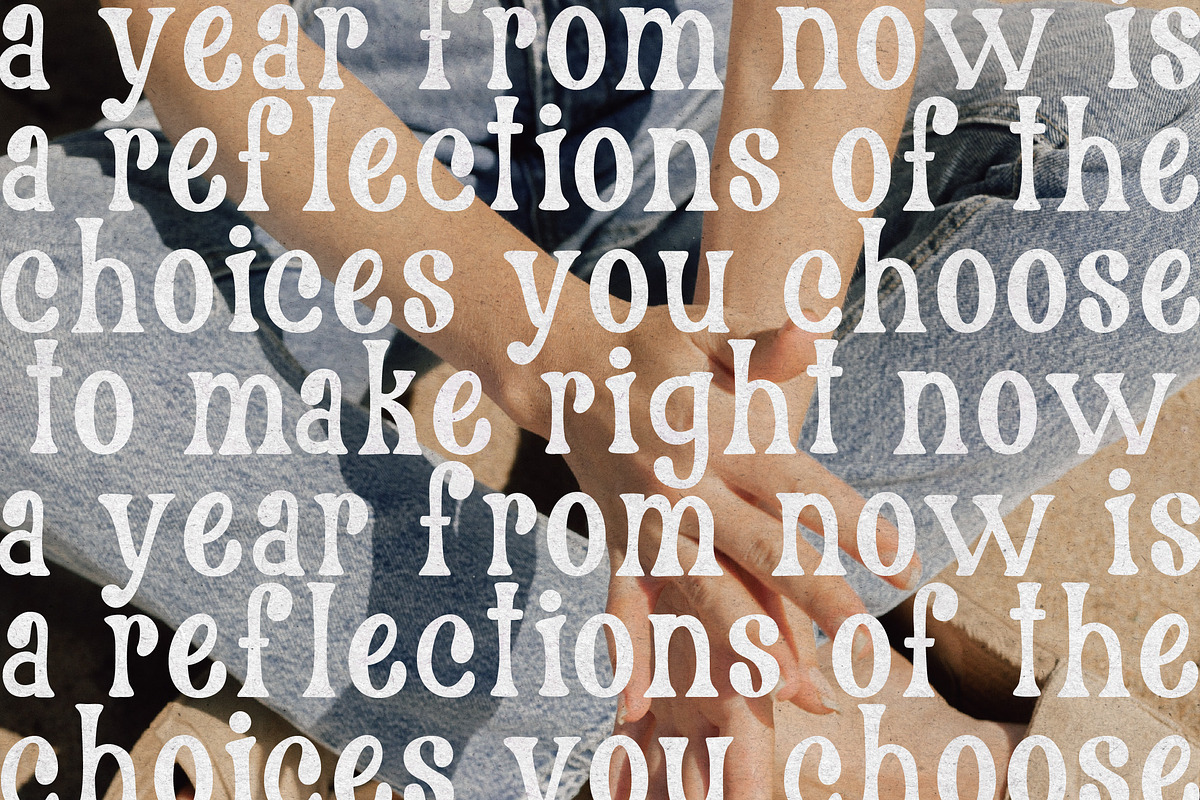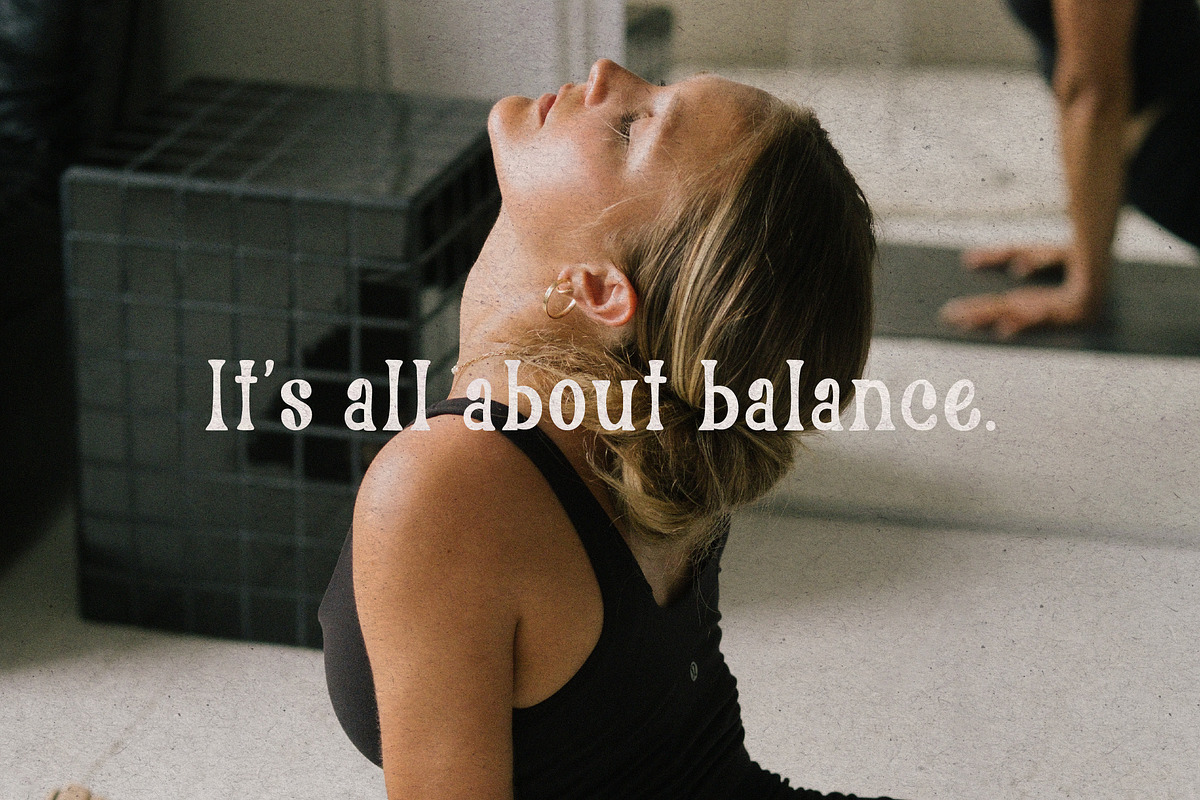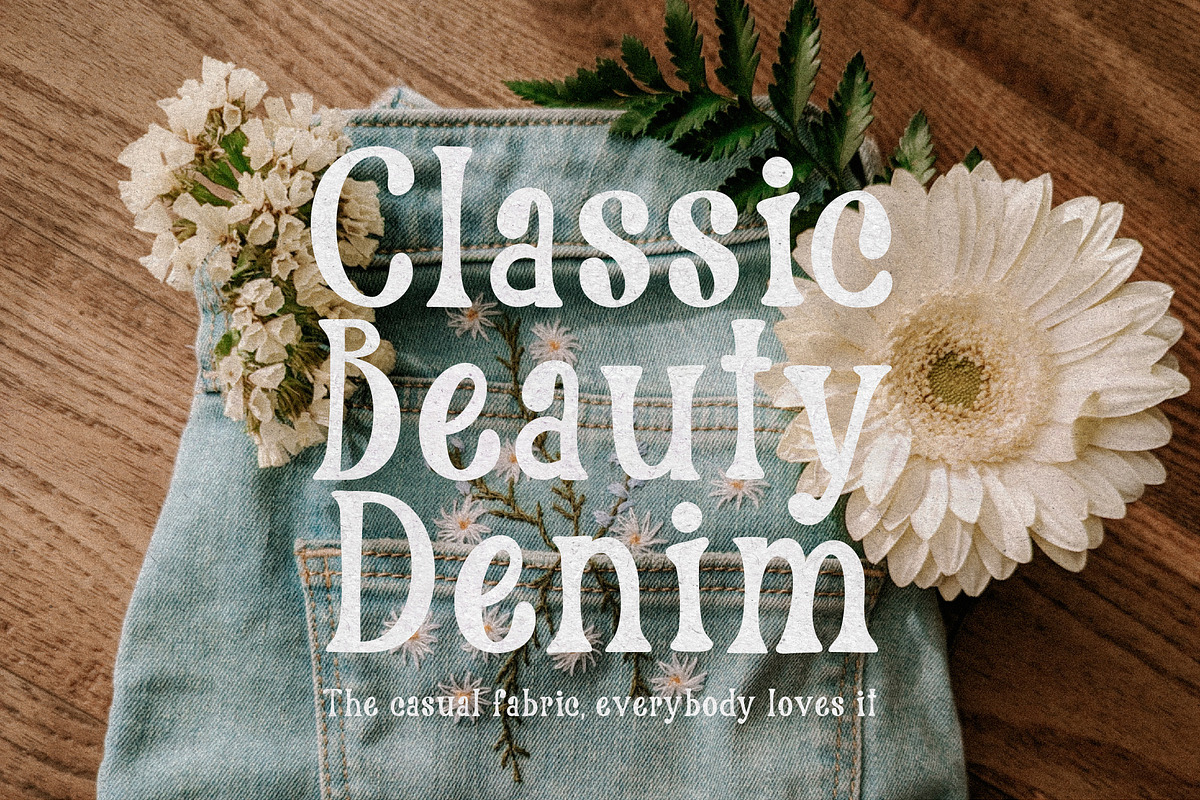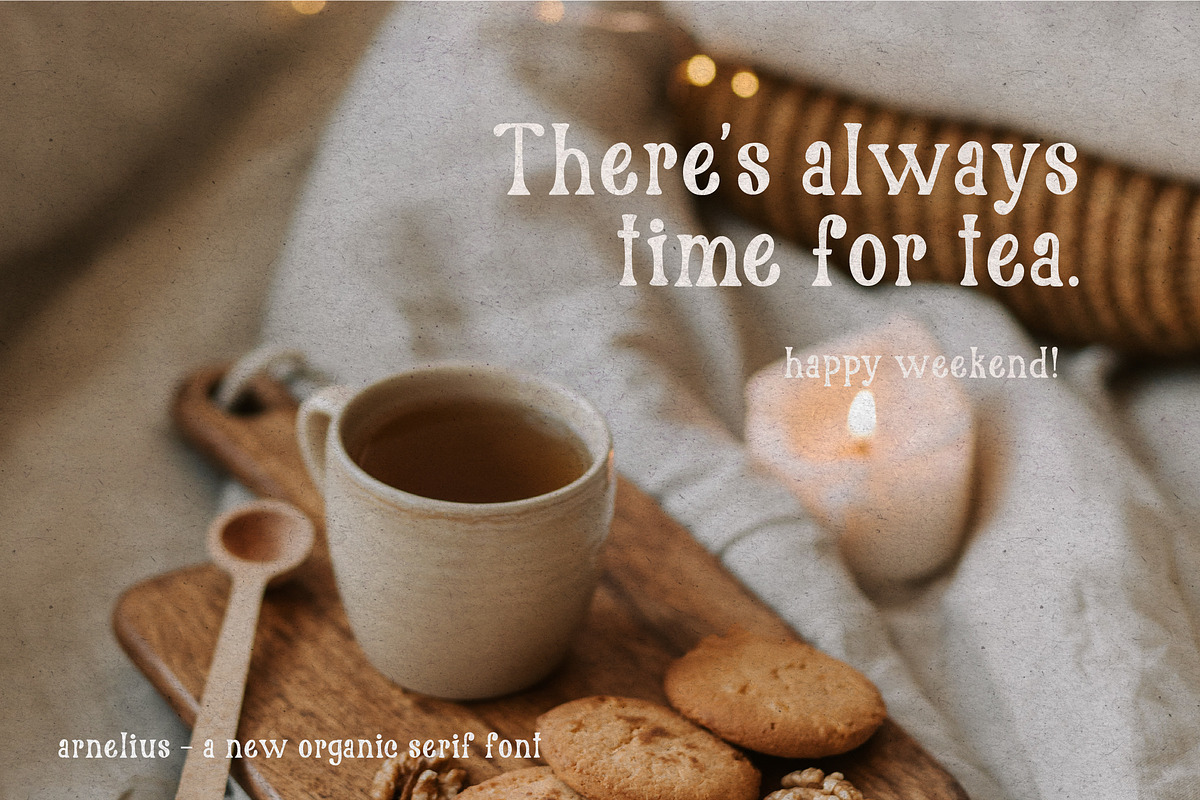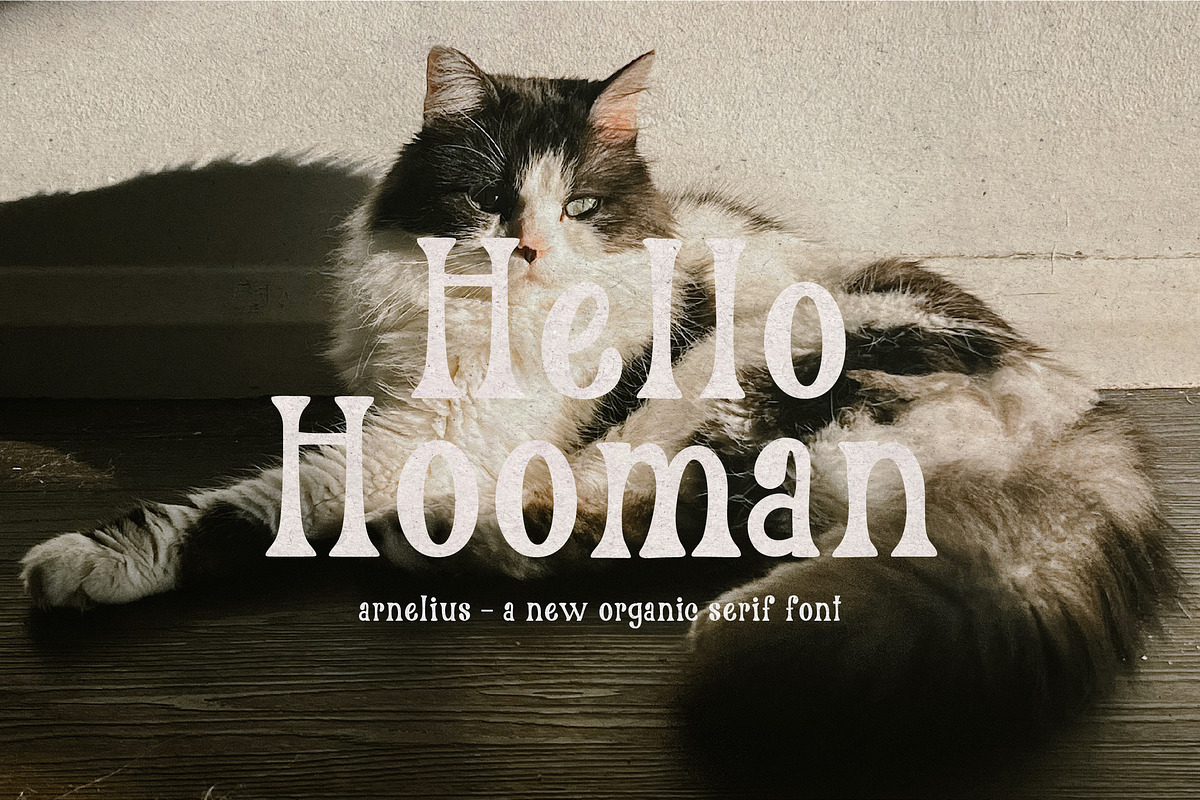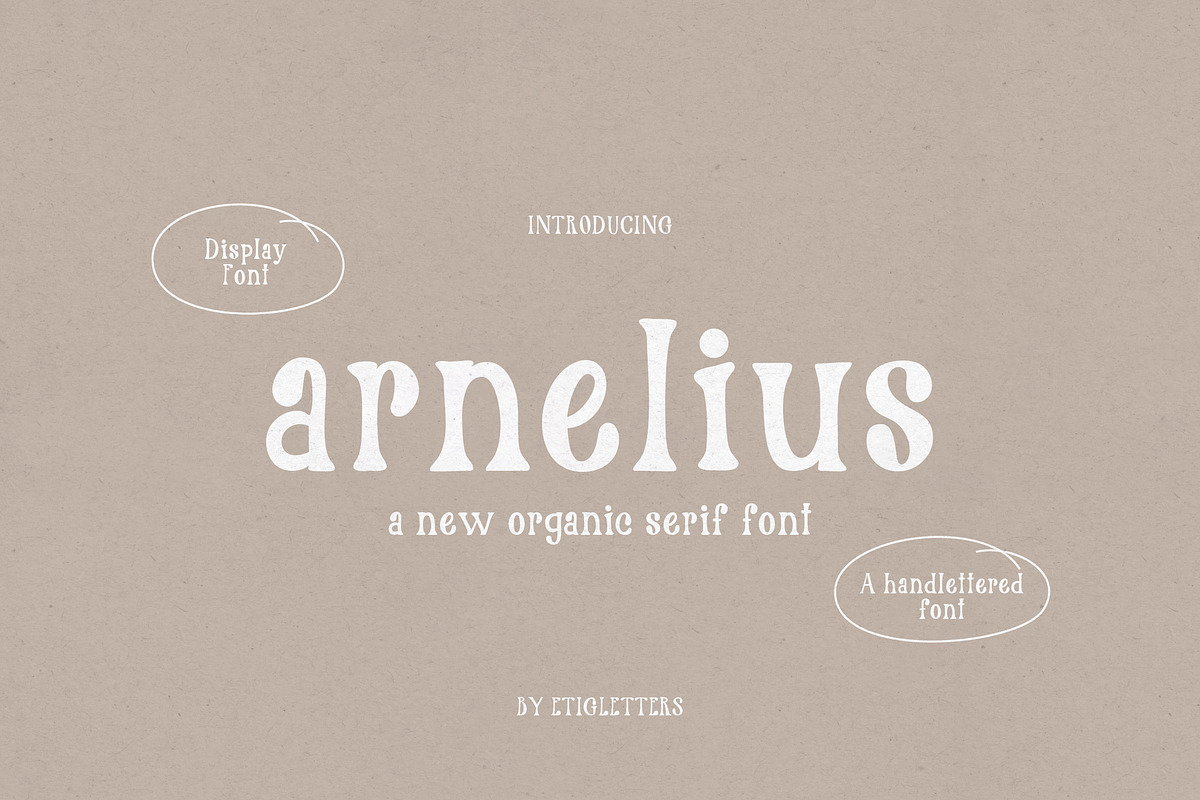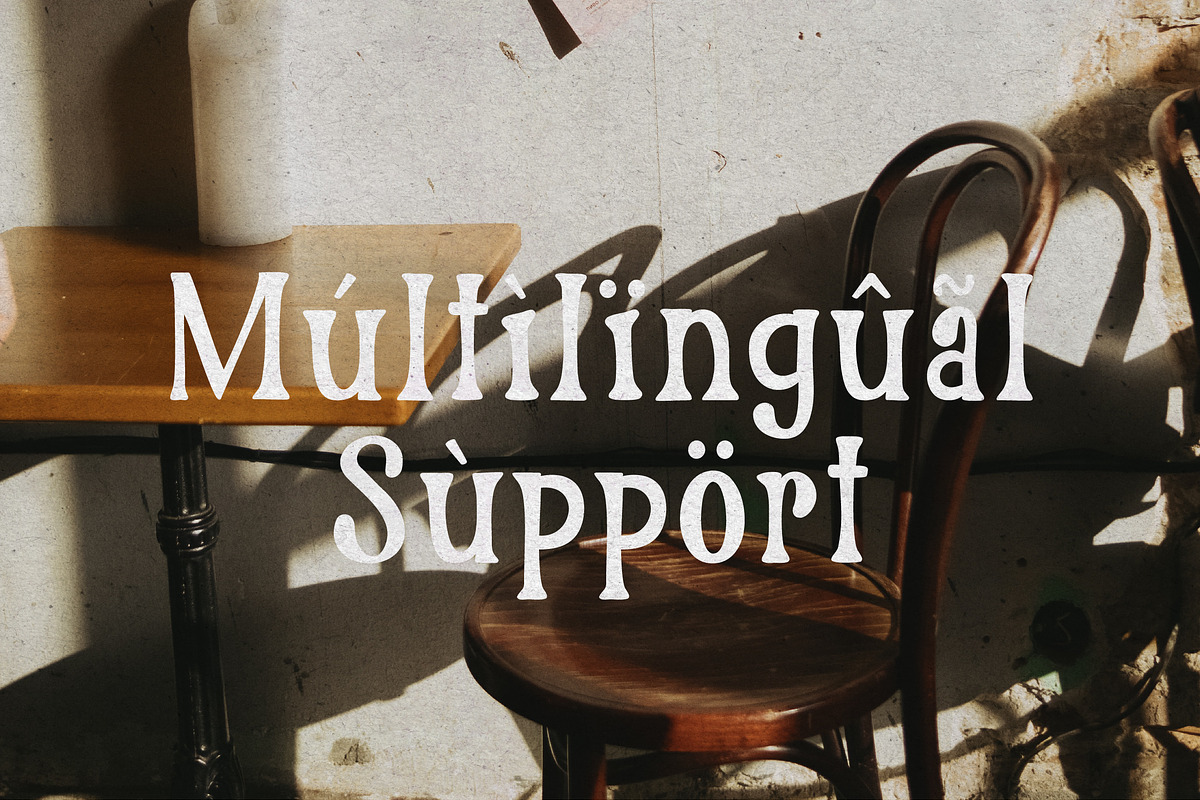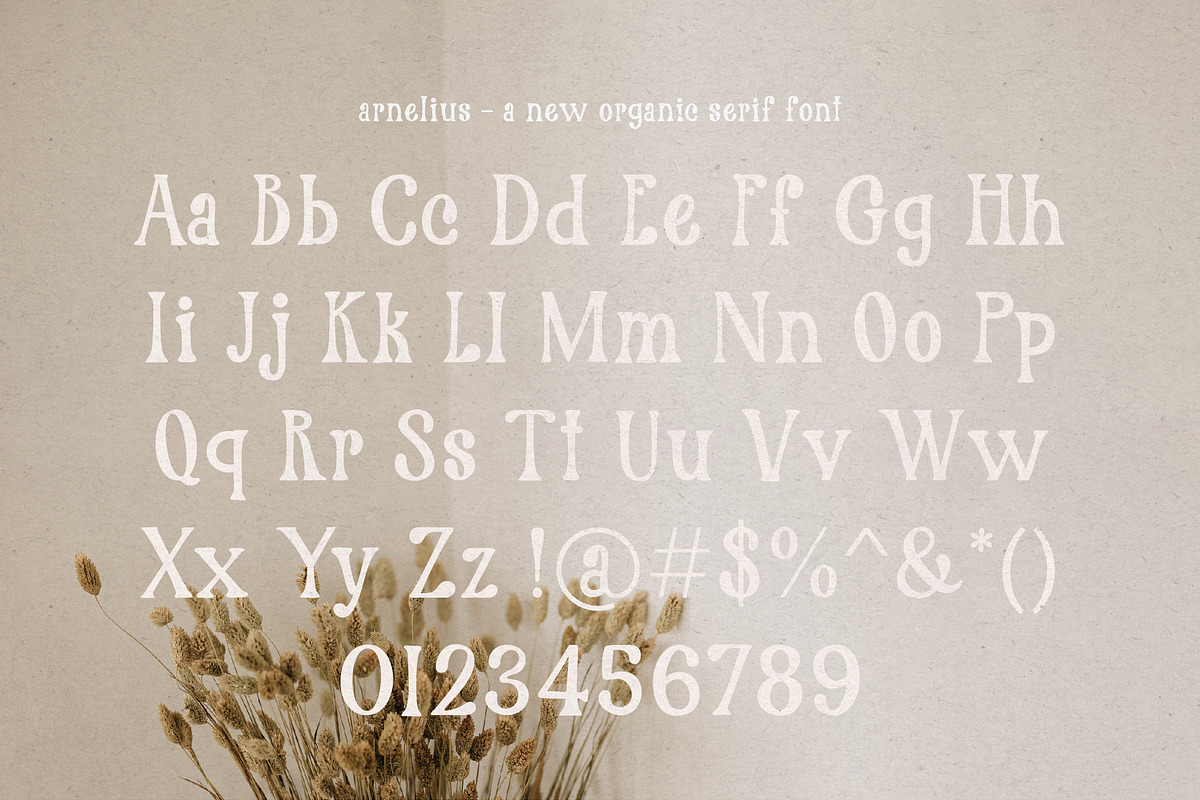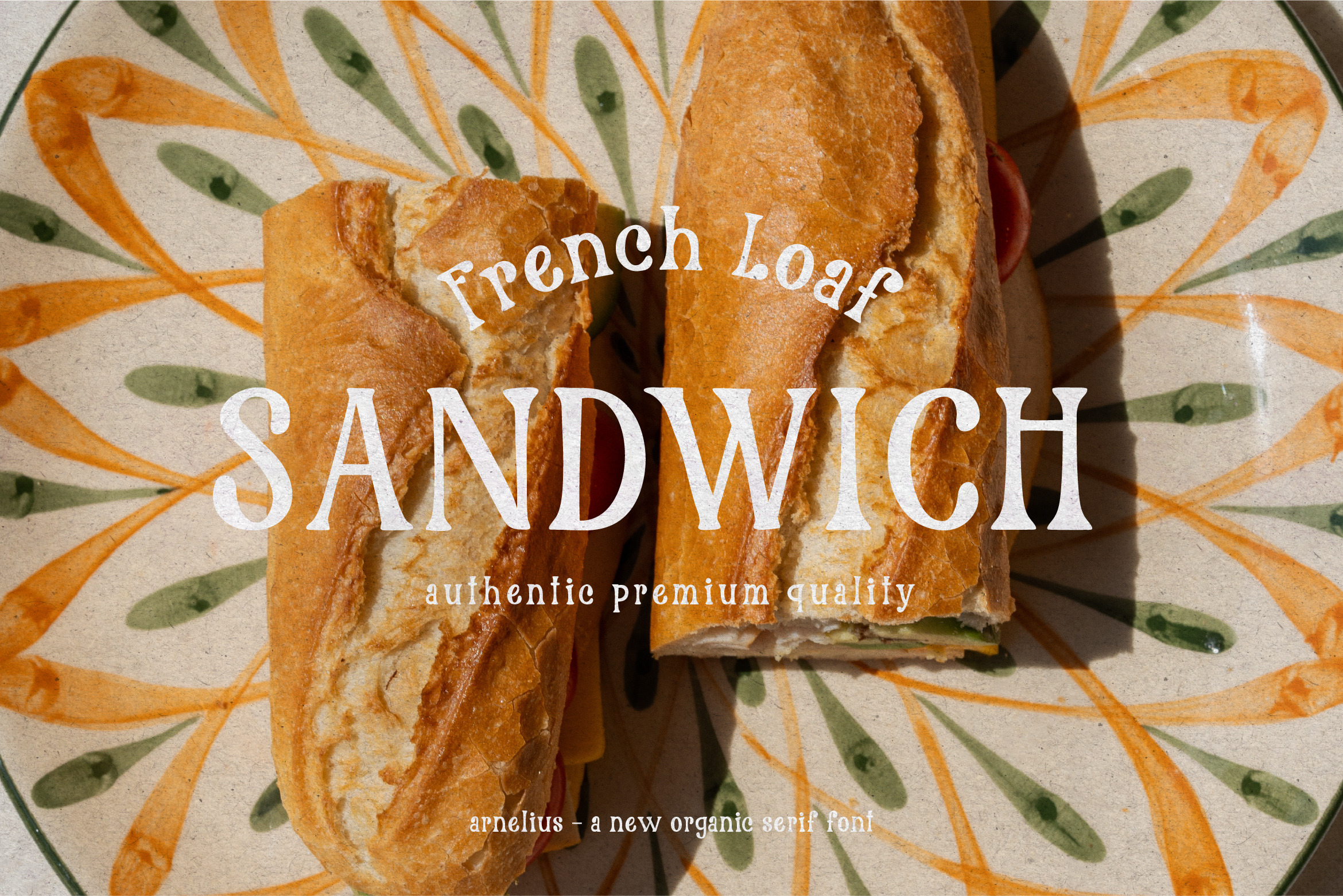
Arnelius Serif Font
Introducing, Arnelius Serif Font - an antique font inspired in vintage. Great for texts or headings and perfect as a pairing font. Design quotes, packaging, labels, and branding with a vintage style.
This font also comes with an uppercase, numeral, punctuation, and Multilingual Support. Also already PUA Encoded!